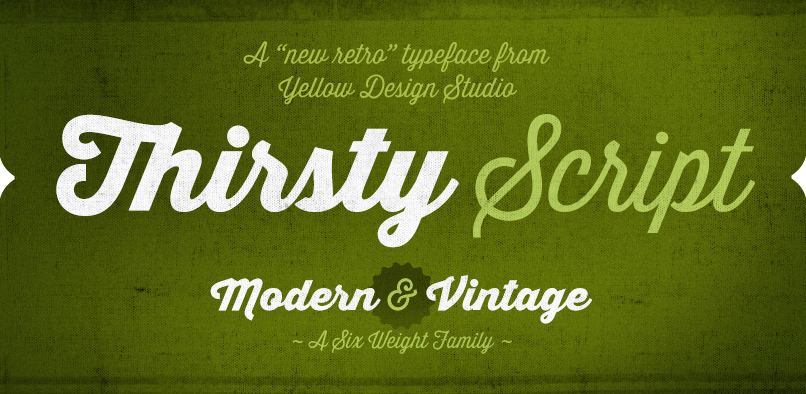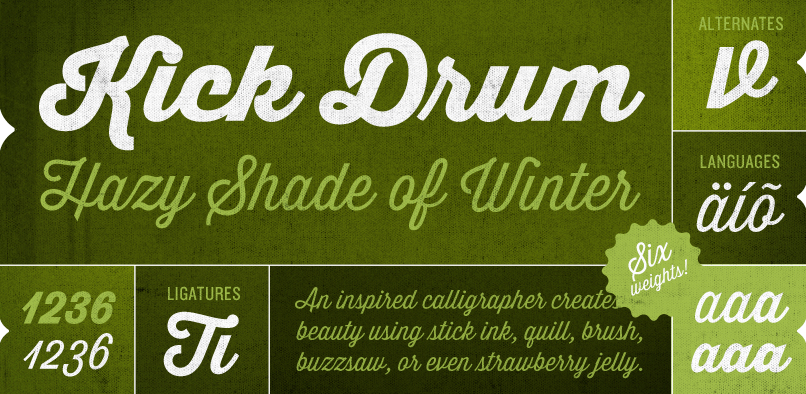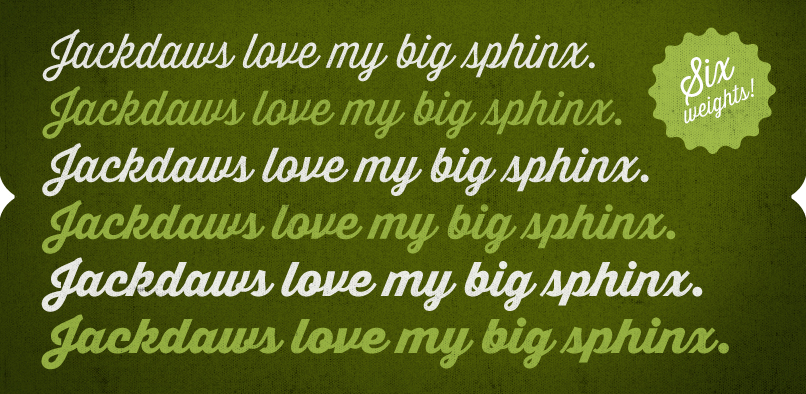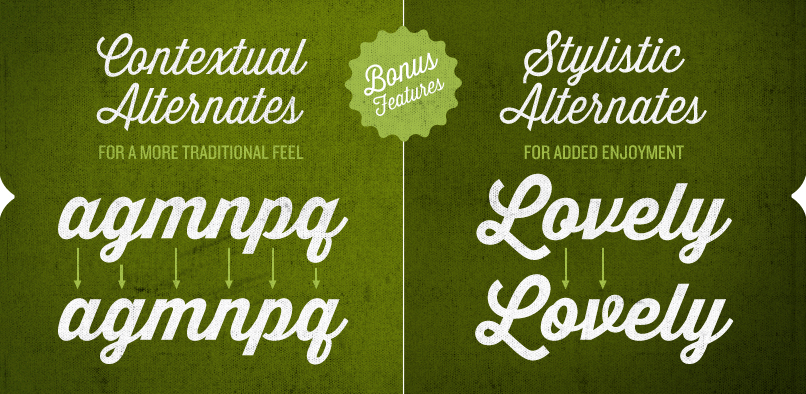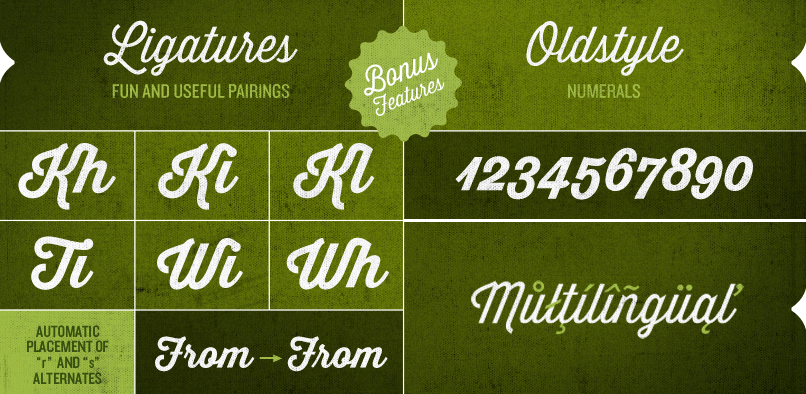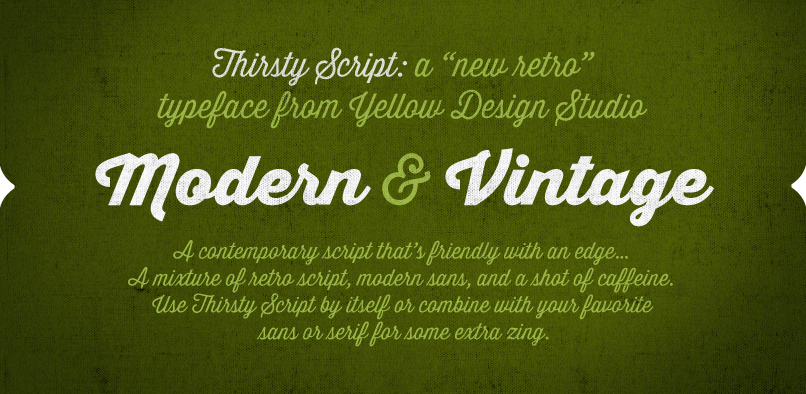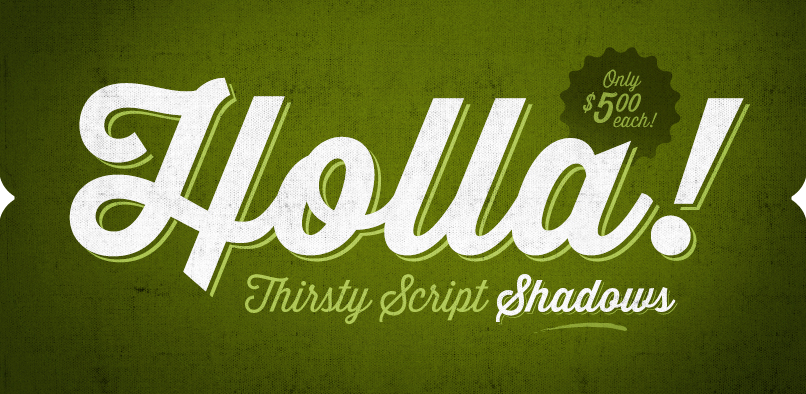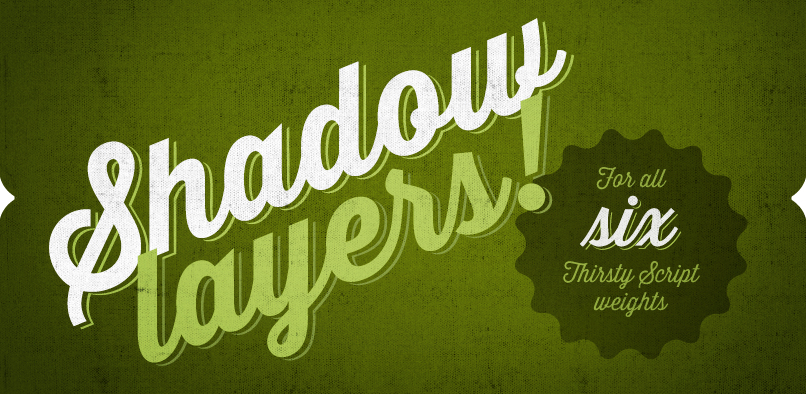
Thirsty Script from Yellow Design Studio is a contemporary script conceived as a marriage of elements from vintage signage scripts, Wisdom Script, Deftone Stylus, and Lobster. The result is a typeface with a ‘new meets vintage’ vibe. It’s friendly with an edge…a mixture of retro script, modern sans serif, and a shot of caffeine.
Features include six weights from Light to Black, shadow layers, old-style figures, contextual alternates (for a slightly more traditional feel), multiple language support, and a handy selection of ligatures and stylistic alternates.
SHADOWS: Add depth and pop to all six weights of Thirsty Script quick & easy by duplicating the text layer and switching it to Shadow. Color and offset to taste. Download and try Thirsty Script Bold Shadow for free!
TIPS: Thirsty Shadows are nicely offset automatically, but this distance can be easily customized for all weights except Light (which is too skinny to offset further without edges peeking out). Includes ligatures that correct shadow overlap issues. In Illustrator set area type options to Em Box Height for proper shadow alignment. In Photoshop align shadows manually.